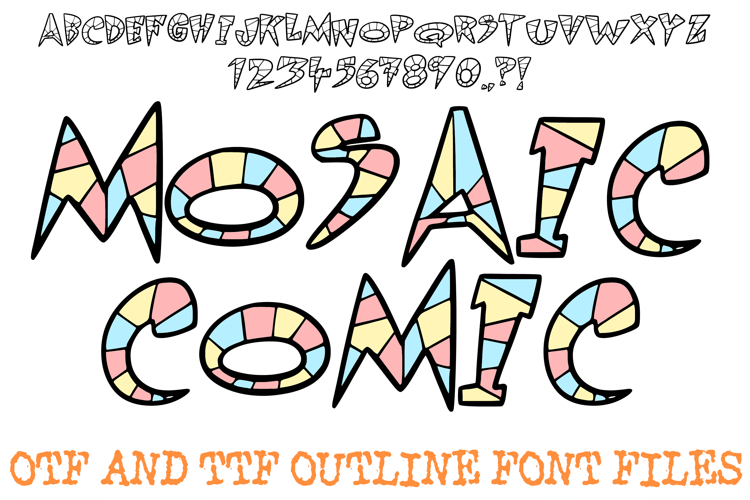
The Mosaic Comic Font is a visually captivating, high-energy display typeface that beautifully merges bold pop-art outlines with intricate internal geometry. Each character in this unique alphabet is structured like a chunky comic book headline, but the interior space is completely fractured into dynamic, mosaic-like shards and webbed patterns. This creative blend of clean, hand-drawn outer curves and complex geometric tile work makes it a spectacular choice for designers crafting alternative comic books, puzzle-themed branding, kids' adventure camp materials, artistic streetwear graphics, and custom decals.
The design masterfully uses varying line weights to separate the dominant outer silhouette from the delicate, fractured inner paths. Because these internal segment lines create clean cells, you have absolute creative freedom to color each section individually—allowing you to easily build stunning multicolored stained-glass windows, cracked volcanic rock, or colorful ceramic tile patterns within your text. Whether you are creating an eye-catching header for a creative vlog, designing seasonal party flyers, or building an unforgettable logo for a toy line, this font infuses a wonderful puzzle-like texture into any display layout.
Fractured Inner Geometry: Beautifully drawn spiderweb and shard line networks segment the interior of each character into distinct mosaic tiles for immediate visual interest.
Fully Colorable Cells: Open vector paths allow you to color the individual internal cells independently, creating endless possibilities for vibrant, multicolored lettering styles.
Chunky Comic Presence: An ultra-bold, slightly irregular hand-rendered border ensures that your headers stand out firmly against complex digital patterns or apparel backdrops.
Dynamic Kinetic Proportions: Jagged terminals, varied letter heights, and playful baselines keep the text looking active, whimsical, and full of motion.